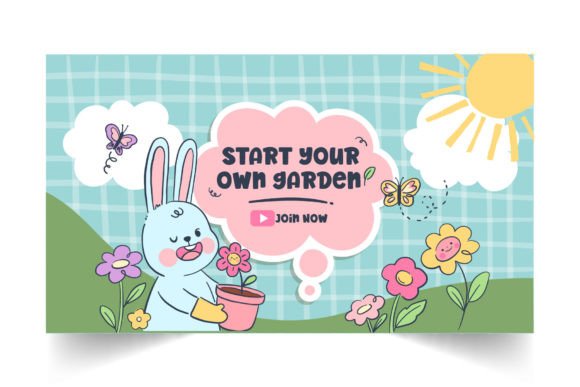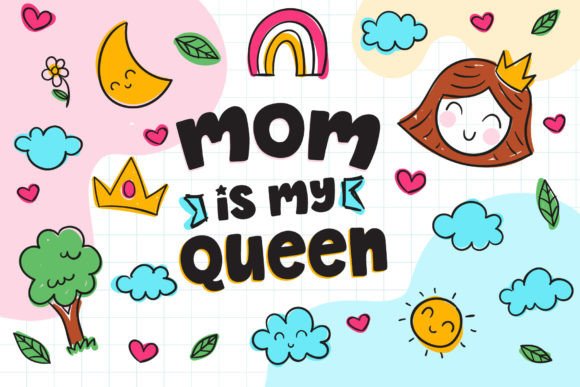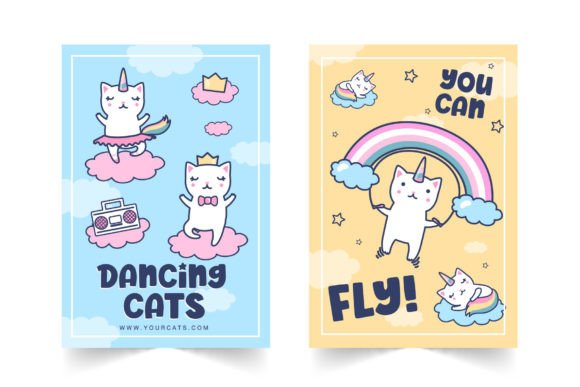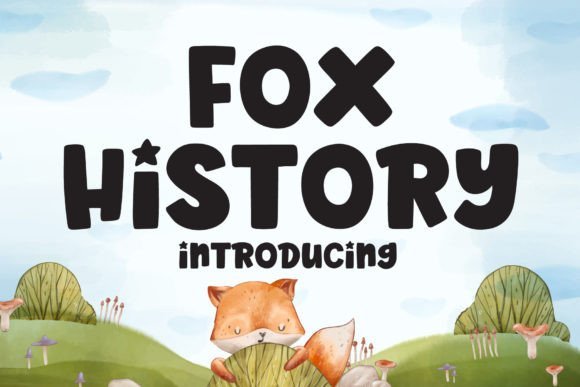
Introduction to Fox History Font
Fox History is a lively and playful display font that is perfect for adding a touch of fun and cheer to any design project.
Crafted with a focus on creativity and originality, this font features bold and expressive characters that are guaranteed to make your designs stand out .
Fox History Font offers exceptional quality and versatility, making it a valuable addition to your design toolkit. Whether you’re creating for personal projects or commercial use, Fox History Font delivers professional results.